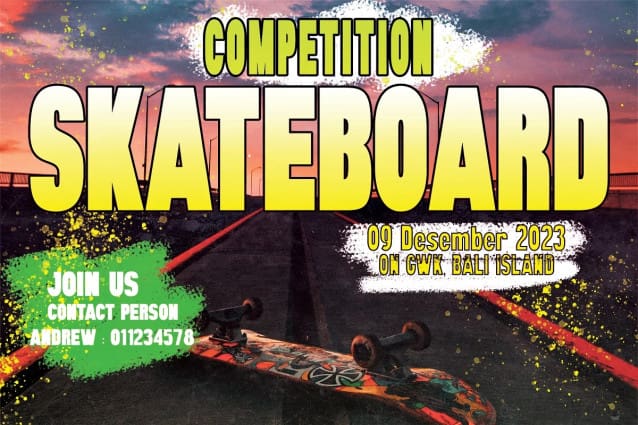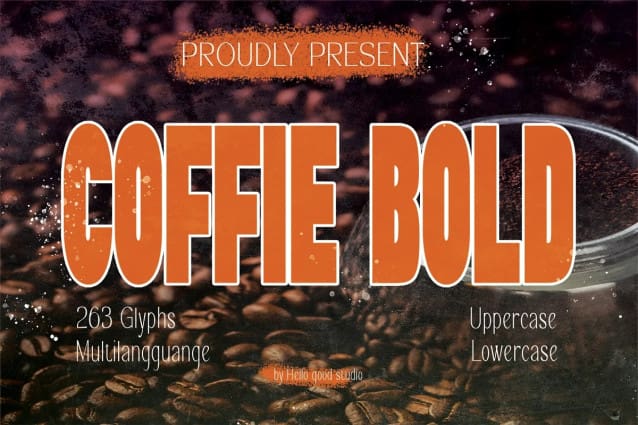
Coffie Bold Font
Coffie Bold Font a Perfect Blend of Boldness and Elegance Elevate your design projects with the Coffee Bold Font, a typographic masterpiece that seamlessly combines the robustness of bold lettering with an unmistakable touch of elegance. With a total of 263 meticulously crafted glyphs, this font is a versatile and powerful tool for all your creative endeavors.